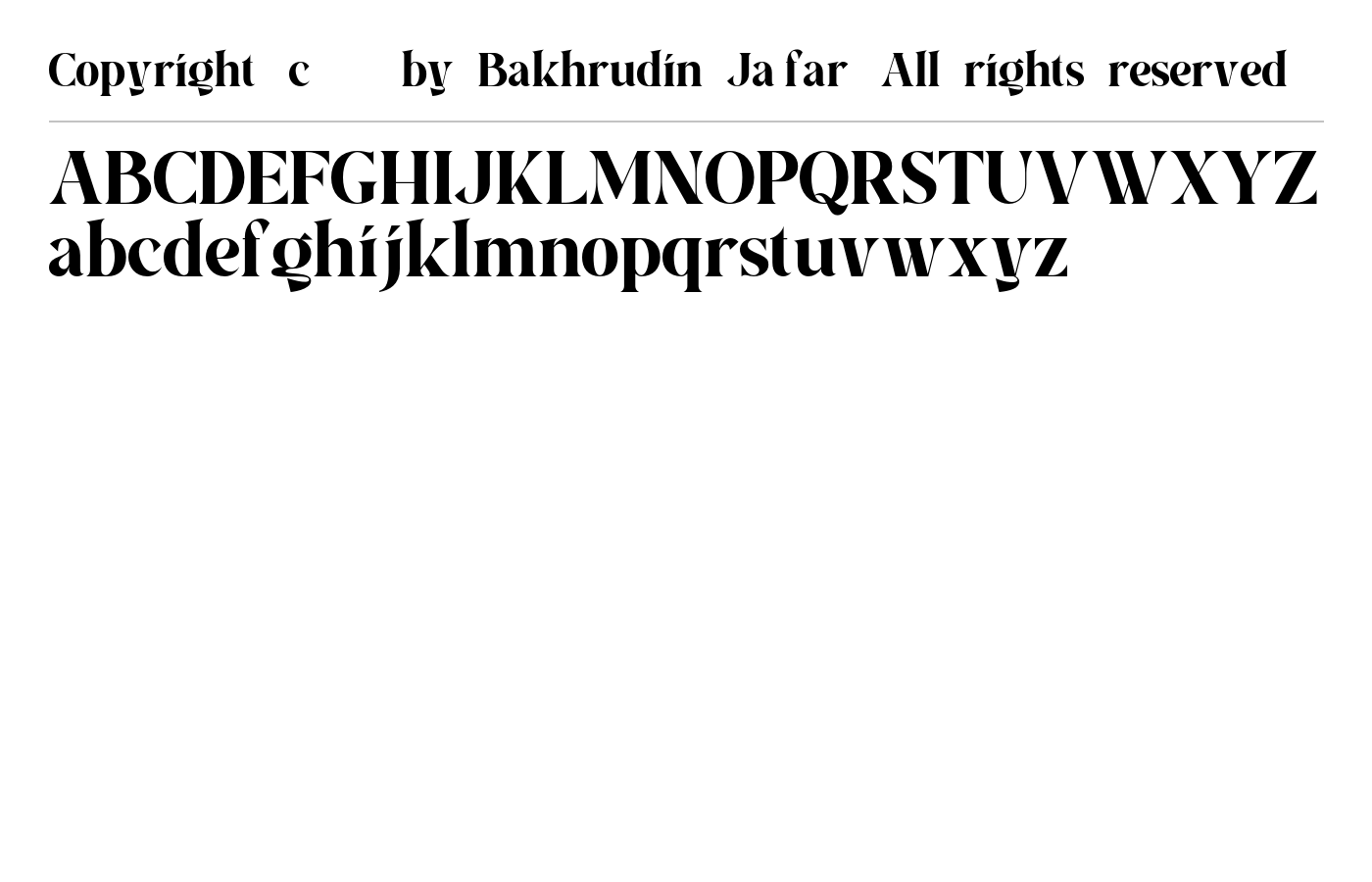
Aira DEMO is a distinct serif font with strong contrast between thick and thin strokes, showcasing a modern Didone style characterized by sharp, elegant serifs and high contrast. Its unique letterforms and refined details give it a sophisticated, artistic flair, making it ideal for upscale branding, editorial headlines, and fashion projects where a dramatic and stylish impression is desired. This font works best in display settings where its striking personality can stand out and captivate attention.
Aira DEMO Font
About Aira DEMO Font